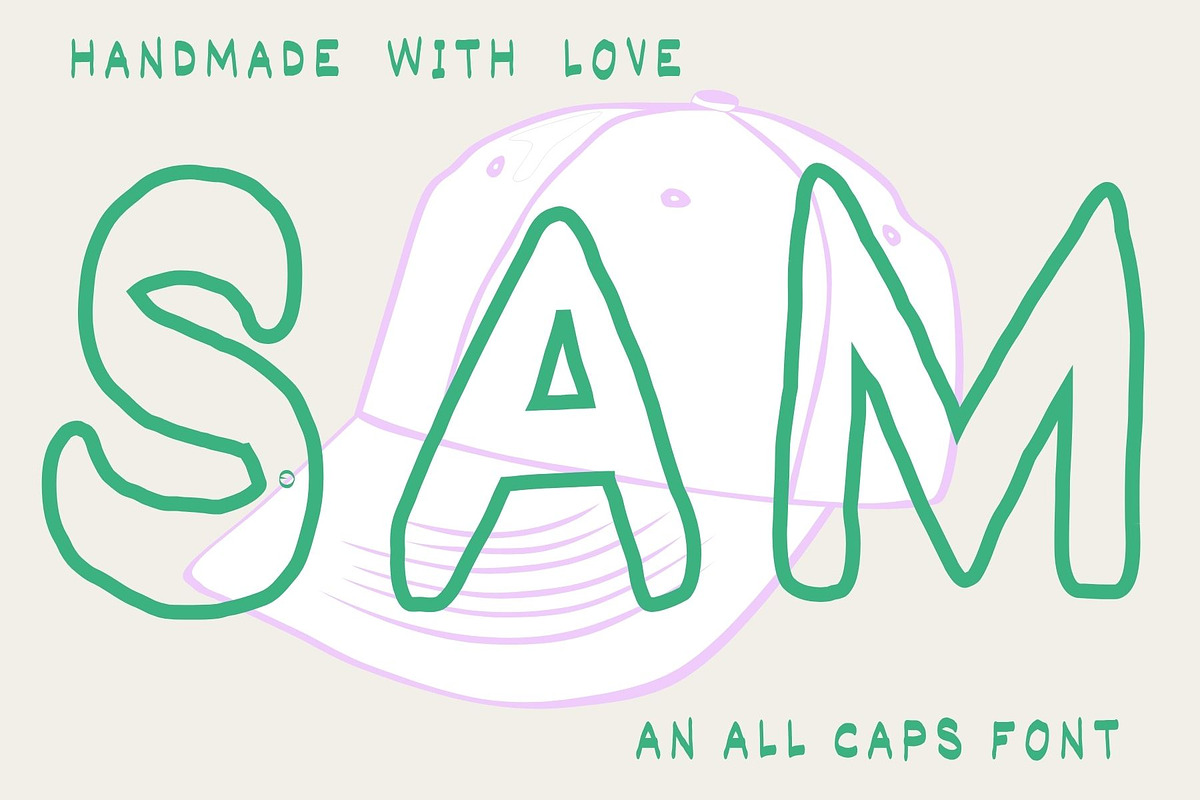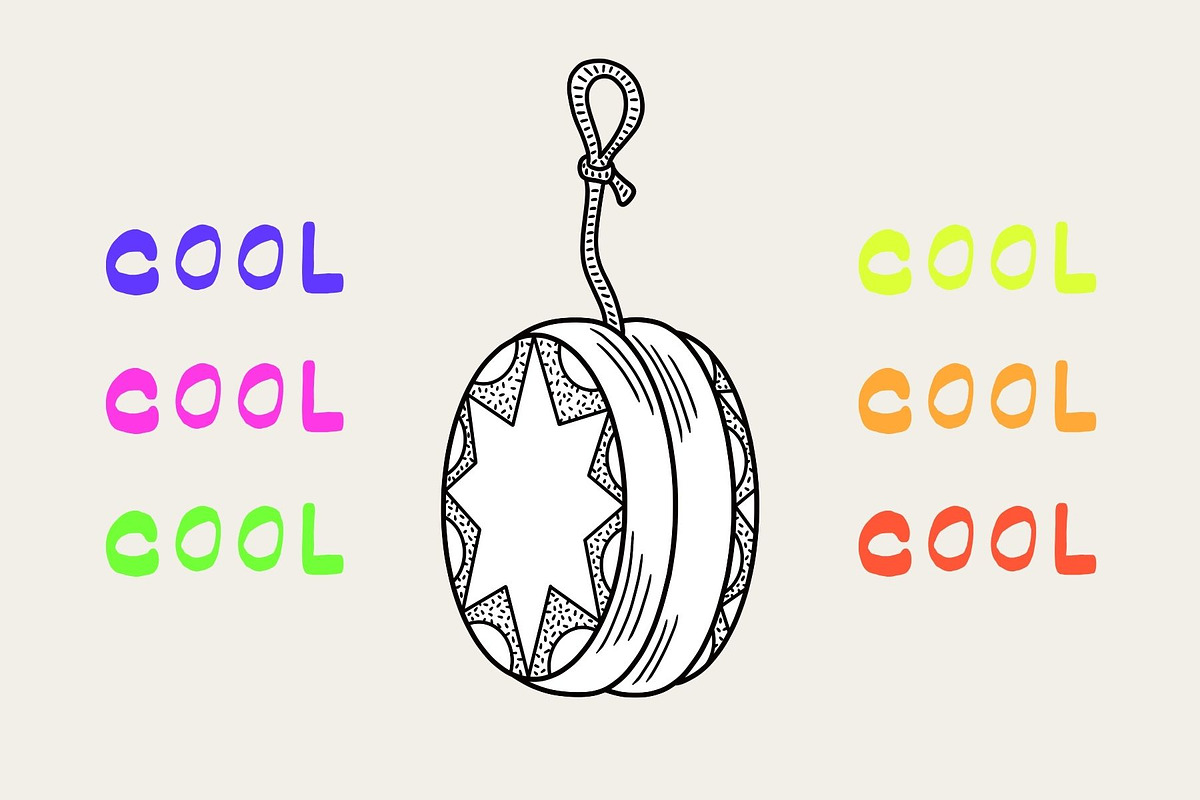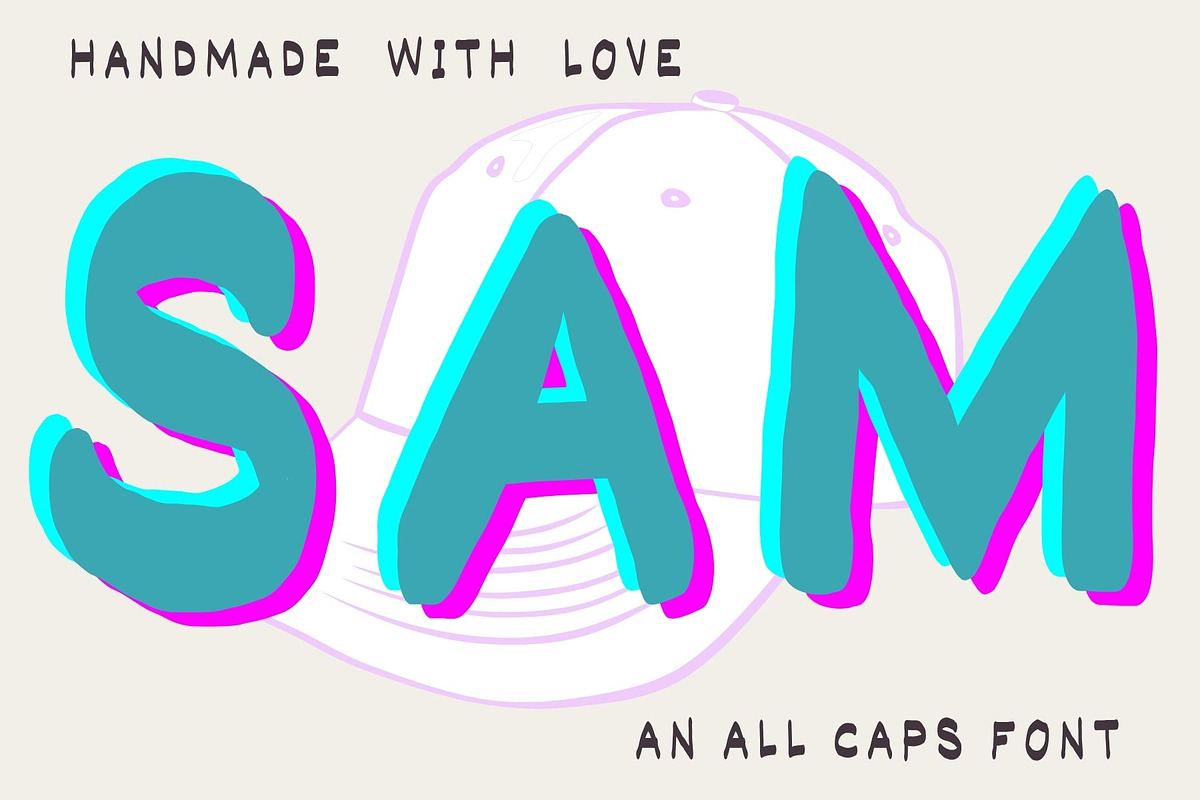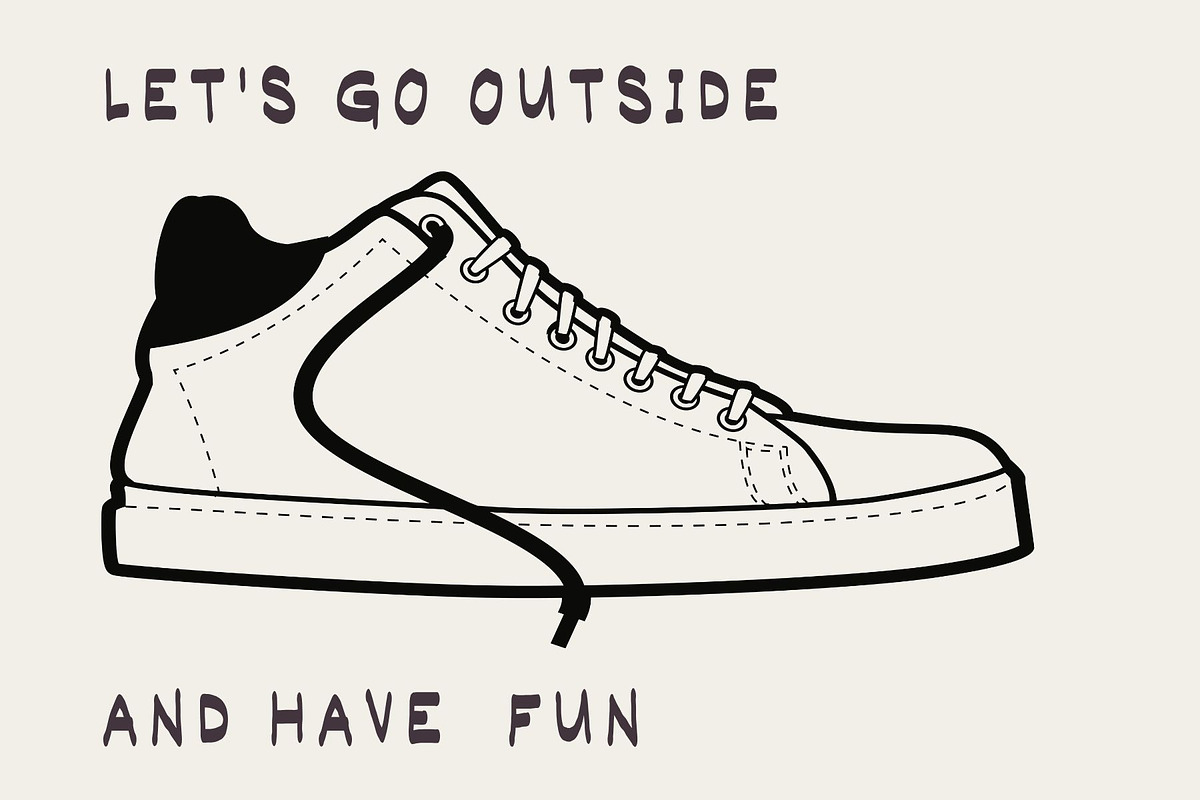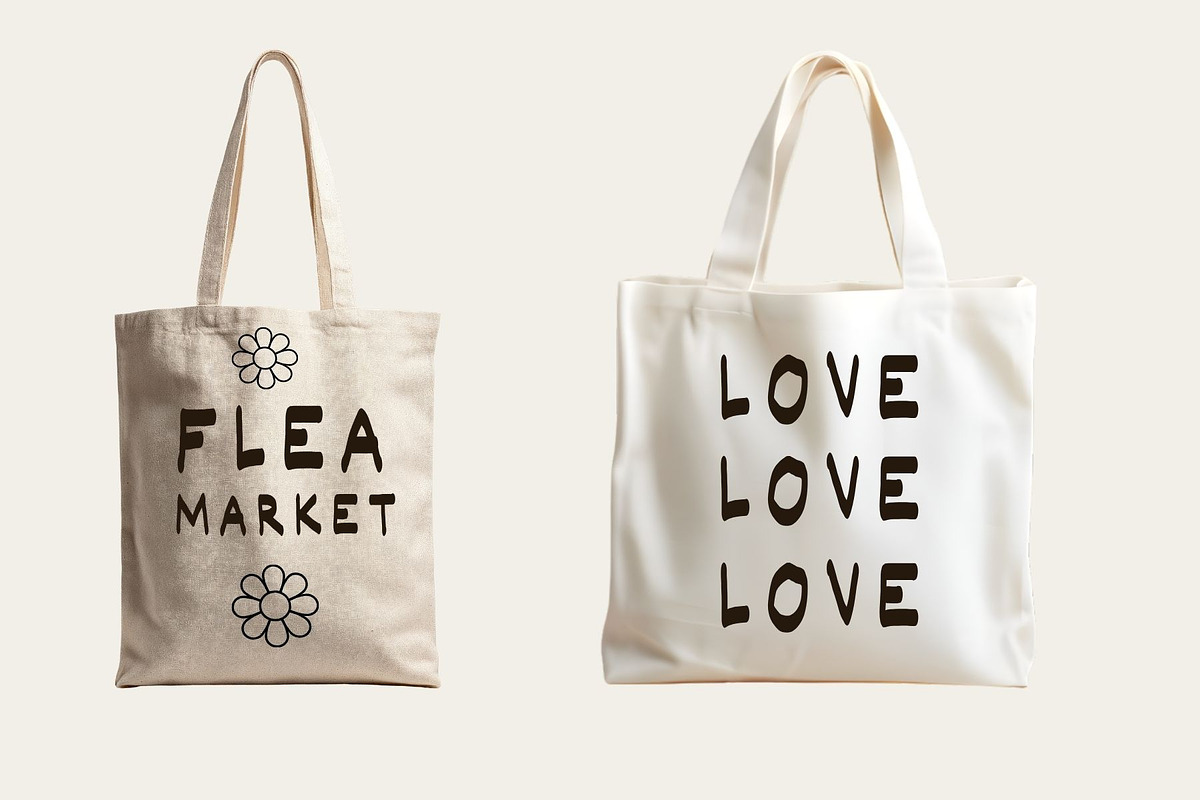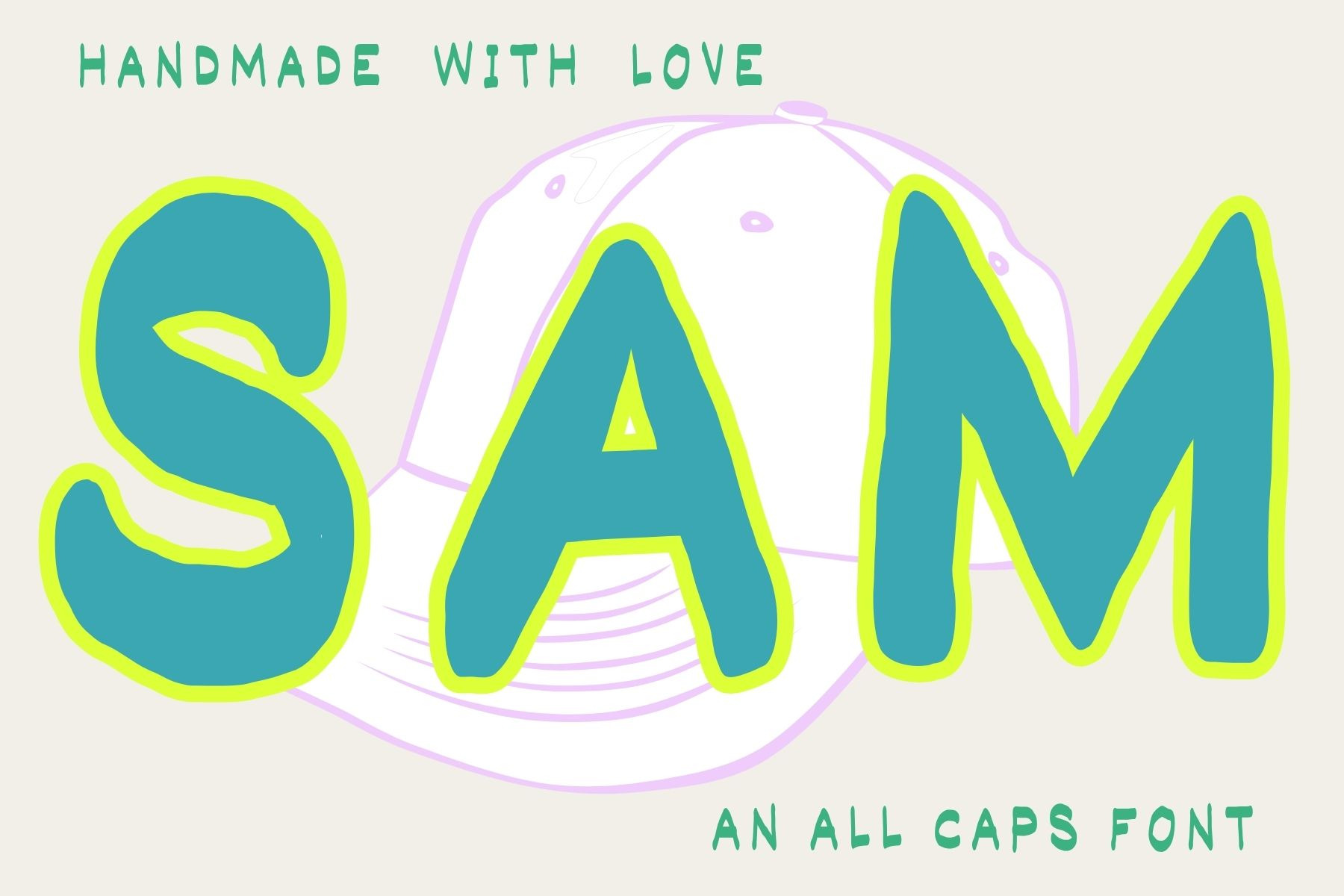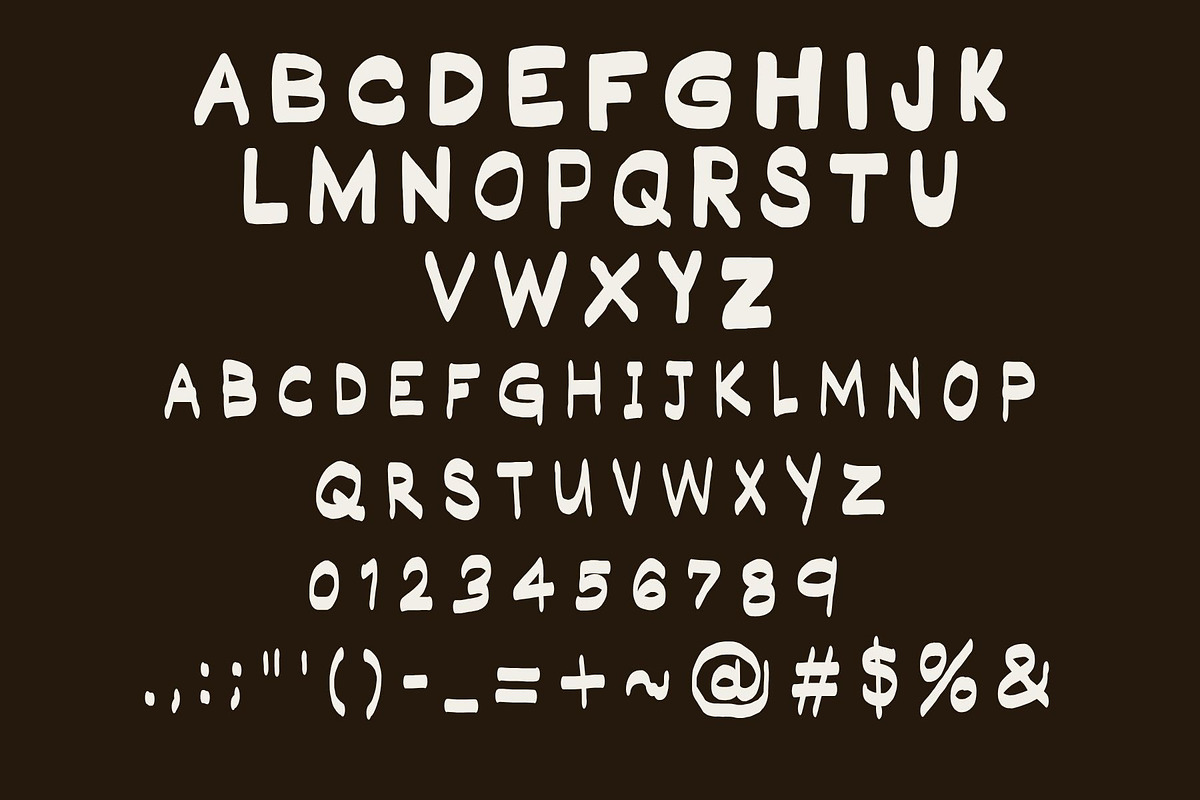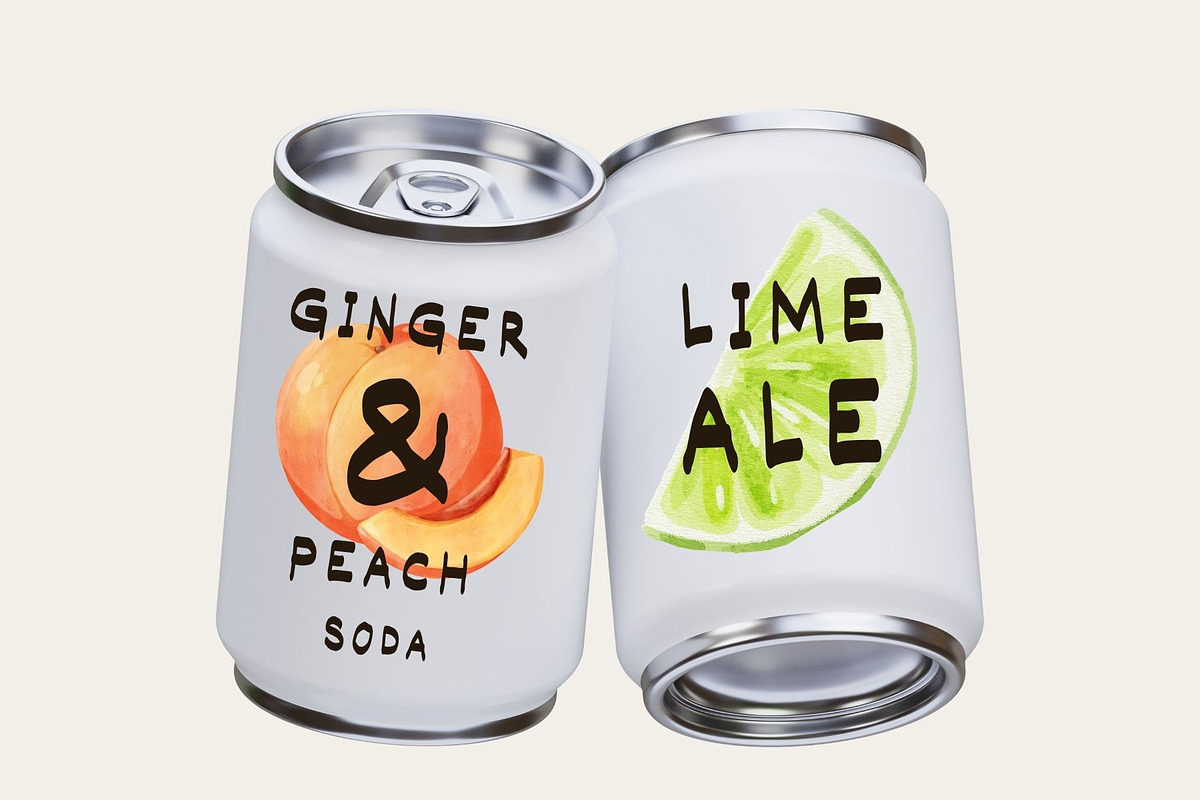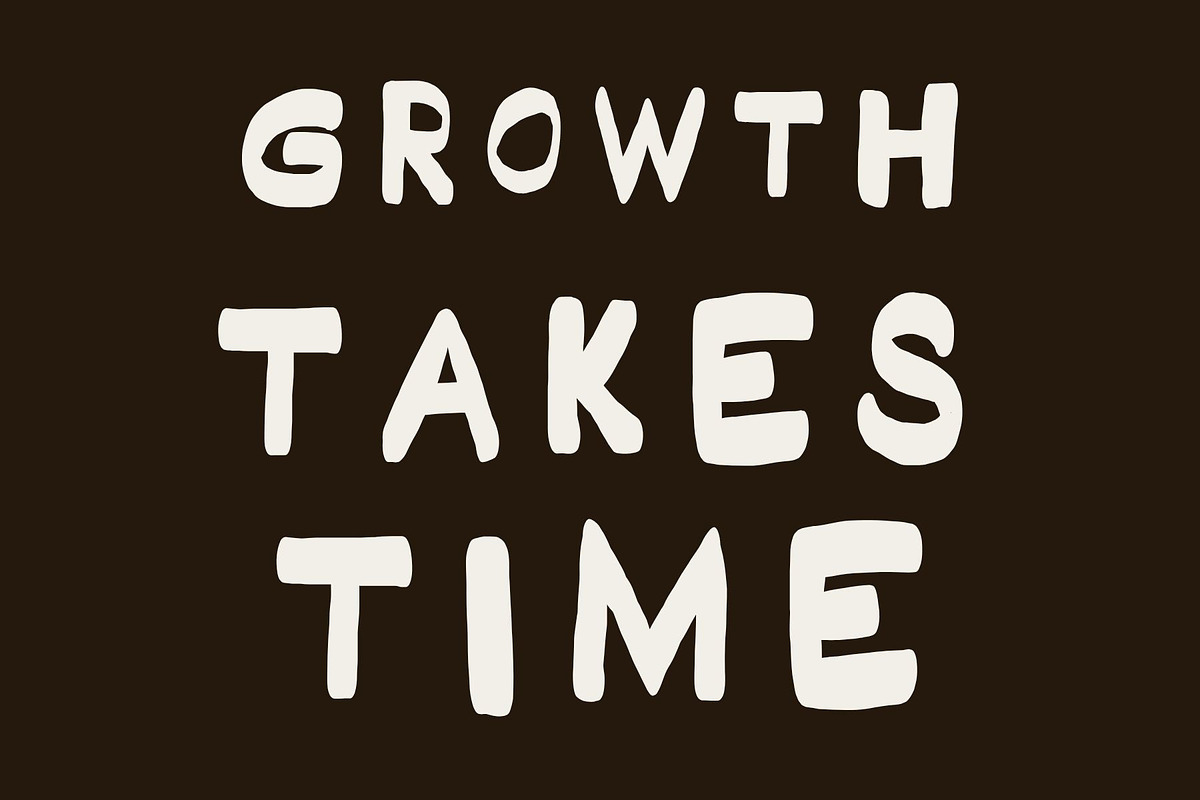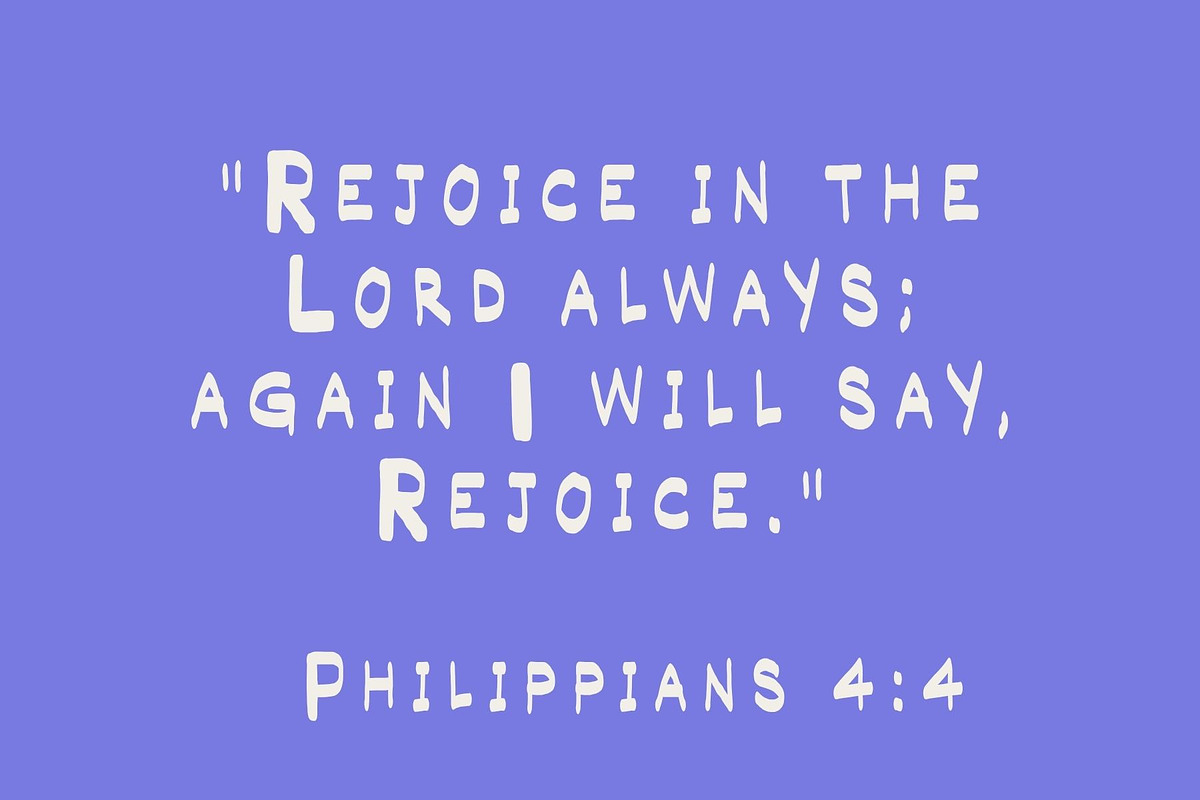
Sam All Caps Handwriting Font
SAM, a handwritten all-caps sans font. * otf files *Full alphabet , numbers, and symbols
Sam is an all-caps sans font that features a unique wiggle, embodying the warmth of handcrafted design. This versatile and eye-catching typeface is perfect for advertisements and product design. Its slightly uneven yet clean aesthetic is sure to captivate both viewers and creators. With a playful and cool vibe, Sam inspires endless creativity. Enjoy the process of designing with this charming font!